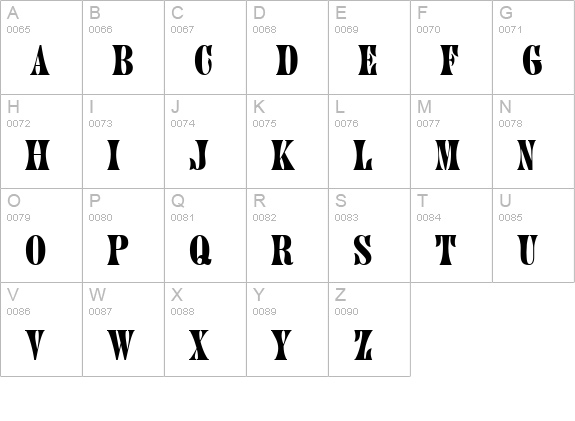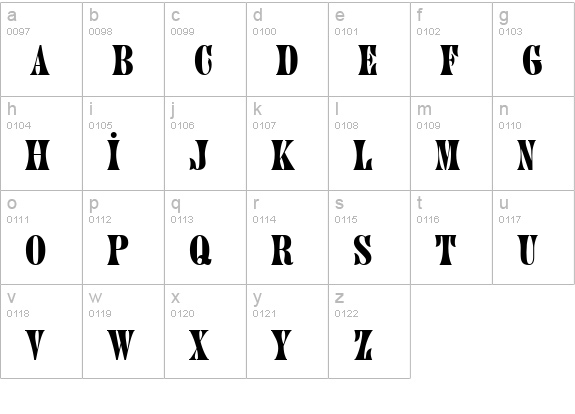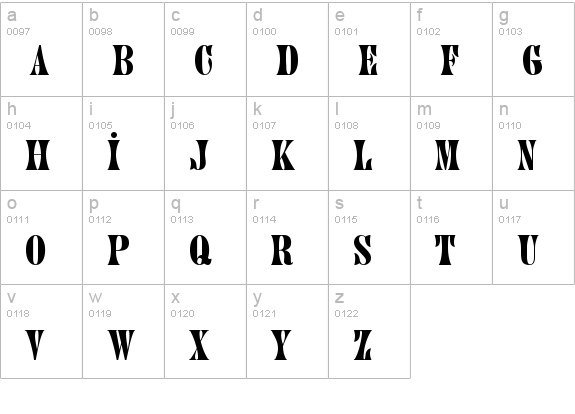
TR Jupiter Font Details
Introducing TR Jupiter Font - a versatile and modern typeface that is perfect for a wide range of design projects. This elegant font features sleek lines and a timeless appeal that will elevate your designs to the next level. With its clean and clear letterforms, TR Jupiter Font is easy to read and perfect for both digital and print applications. One of the best things about TR Jupiter Font is that it is completely free to download. Yes, you read that right - this stunning font is available for free at FontsMarket.com. Whether you are working on a branding project, designing a website, or creating printed materials, TR Jupiter Font is a fantastic choice that won't cost you a penny. Don't miss out on this amazing opportunity to enhance your designs with this beautiful and stylish typeface. Download TR Jupiter Font today and take your creations to new heights!